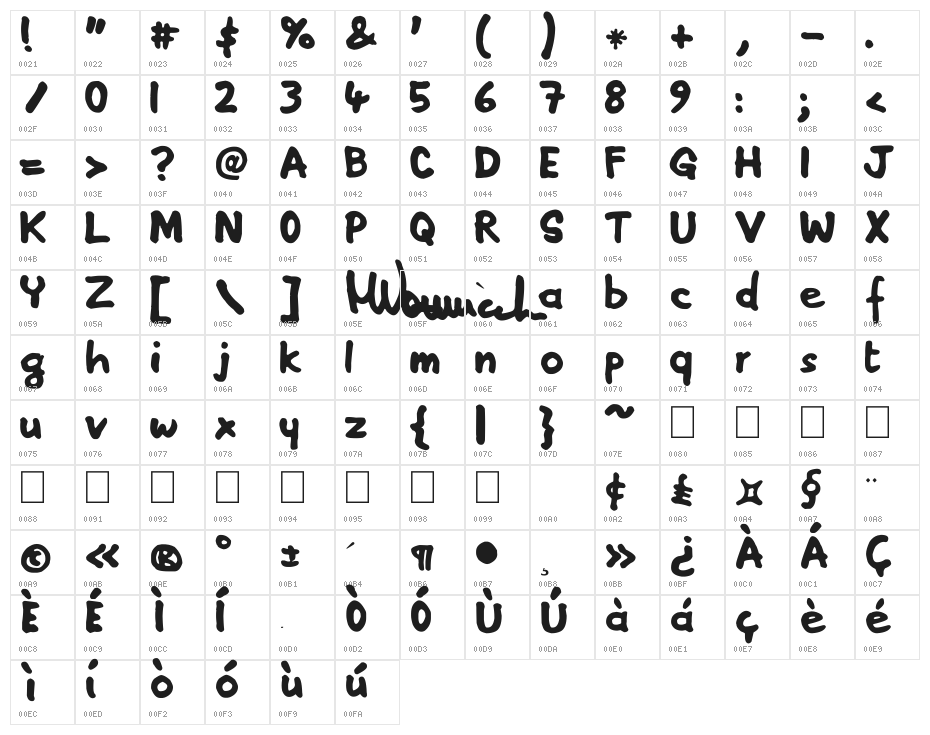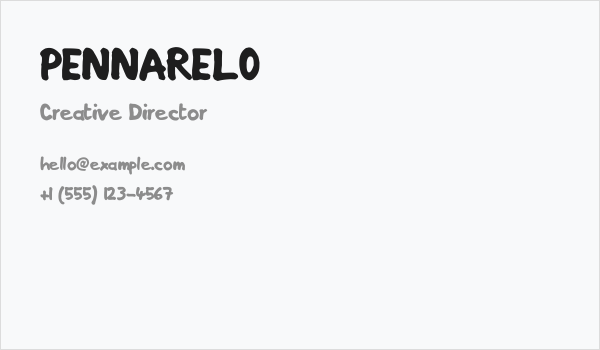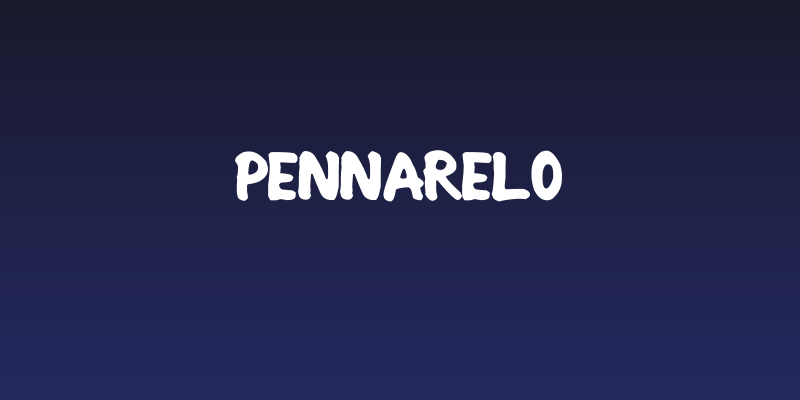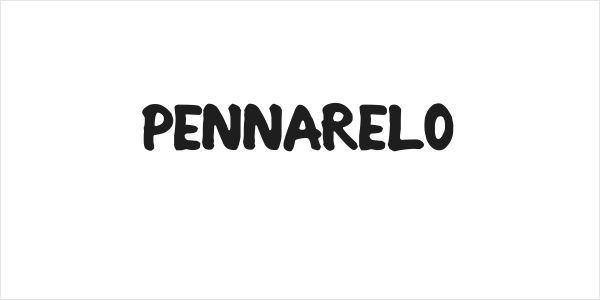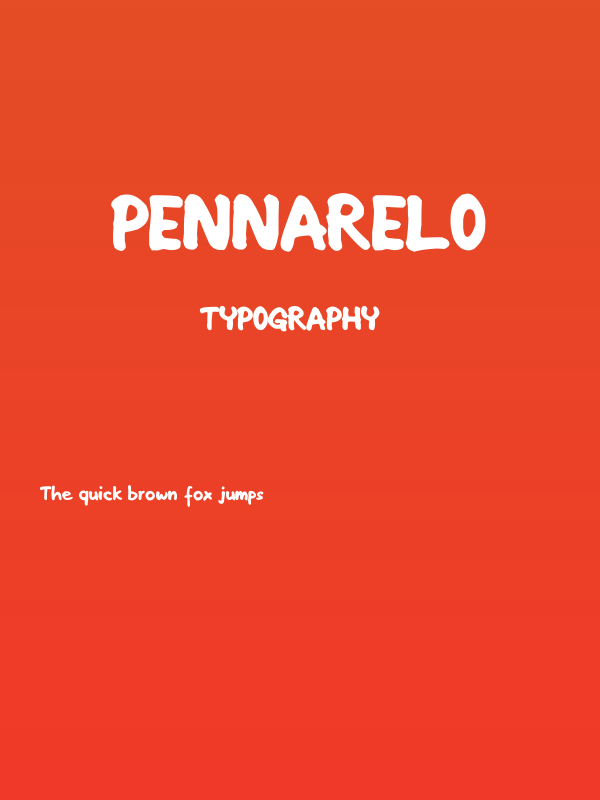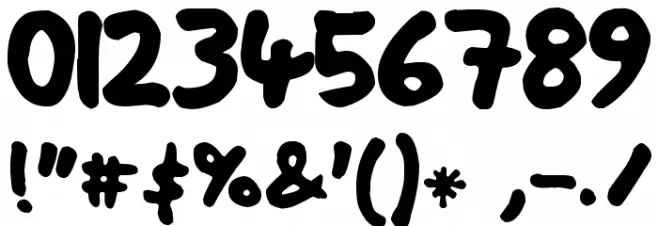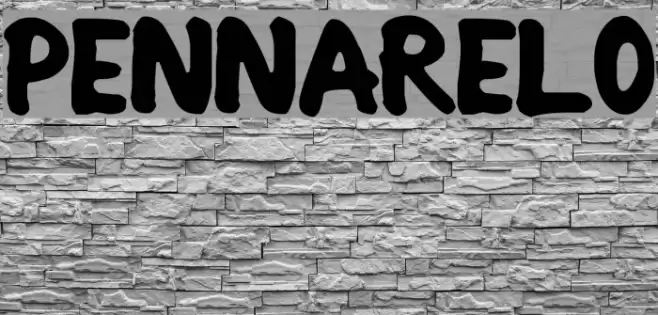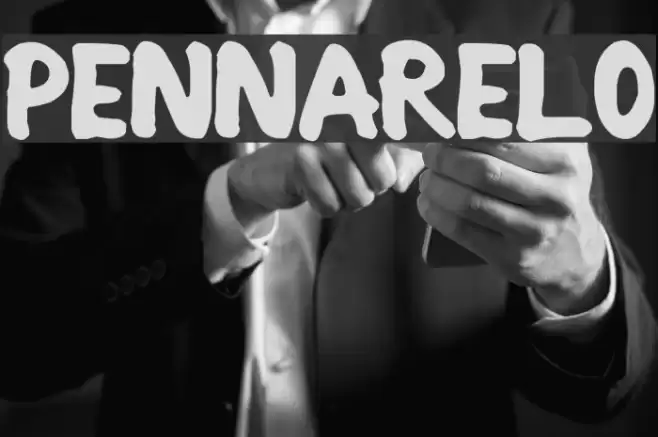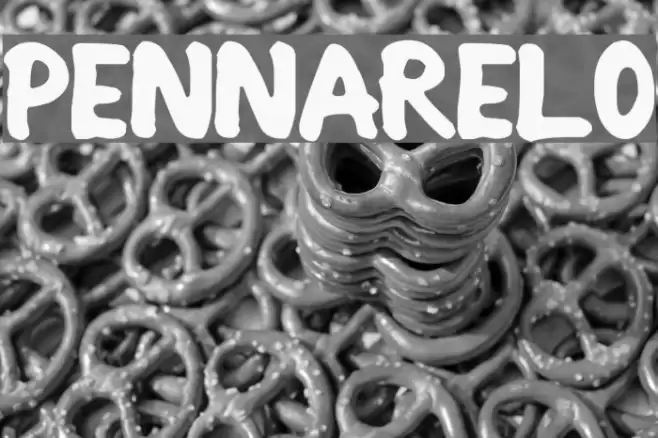
PENNARELO Font
This font features a bold, playful style with rounded edges and a hand-drawn appearance. The characters are thick and slightly irregular, giving it a casual and friendly look. The uppercase and lowercase letters maintain a consistent weight, while the numbers and special characters follow the same design ethos. Its informal style makes it suitable for creative and fun projects. The overall appearance is dynamic and energetic, making it ideal for capturing attention.
| Overall Style | Playful |
| Proposed Projects | Ideal for children's books, comic strips, playful branding, and casual event invitations. |